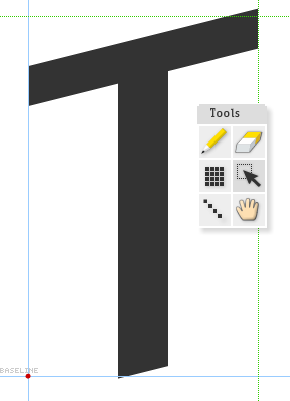
cool idea
Very good. Have you forgotten the T?
Macosin: Oups! Fixed now.
I like it! You could raise the bar on the t, and make the other r a lowercase one.
This is an intriguing idea, but I sort of see what you mean by not necessarily liking it.
R and t are fixed now. =)
I'll keep experimenting with this...